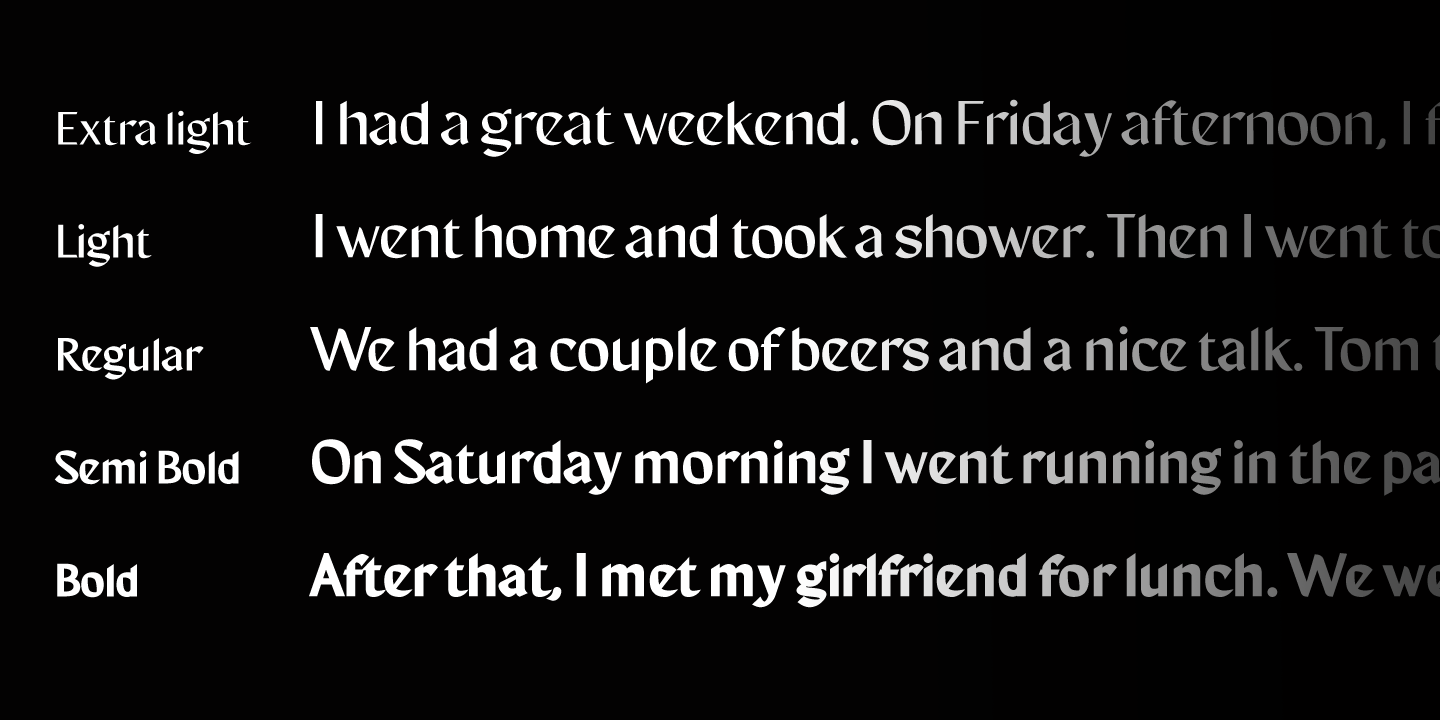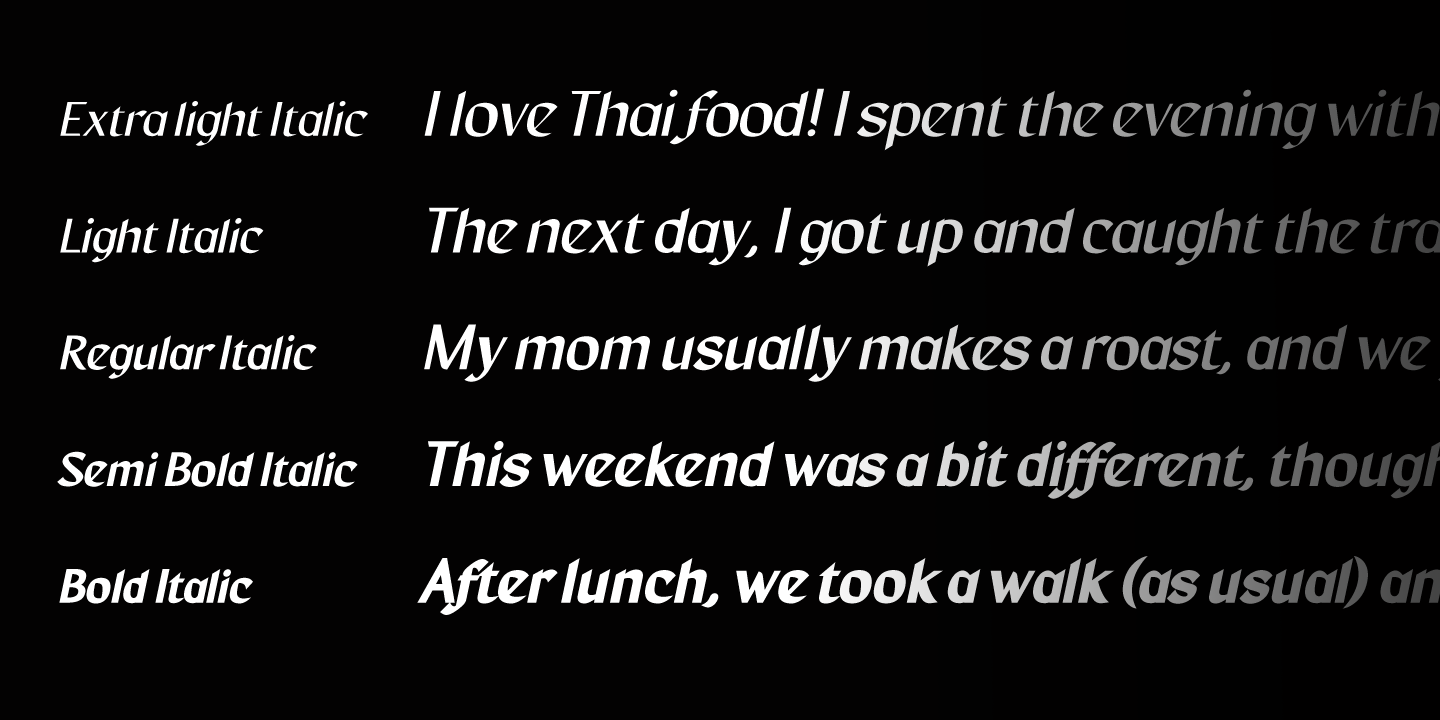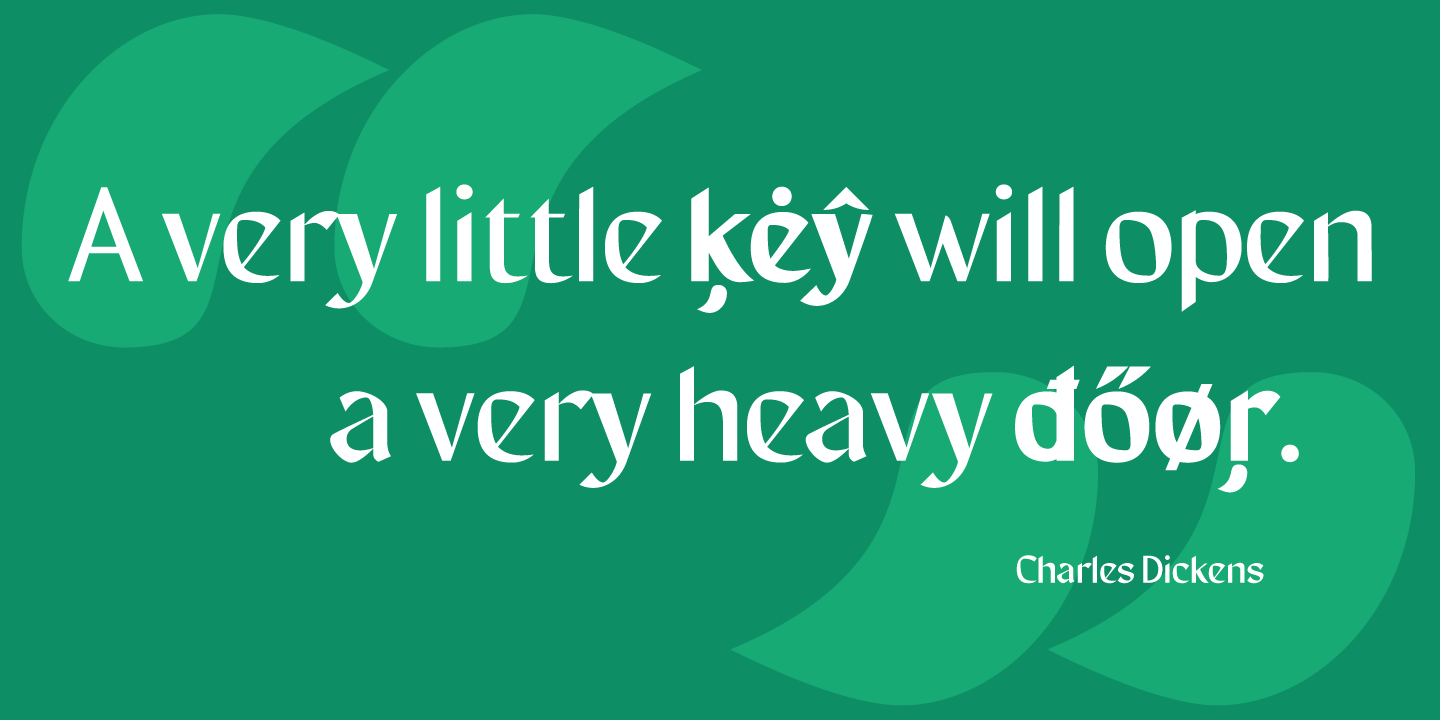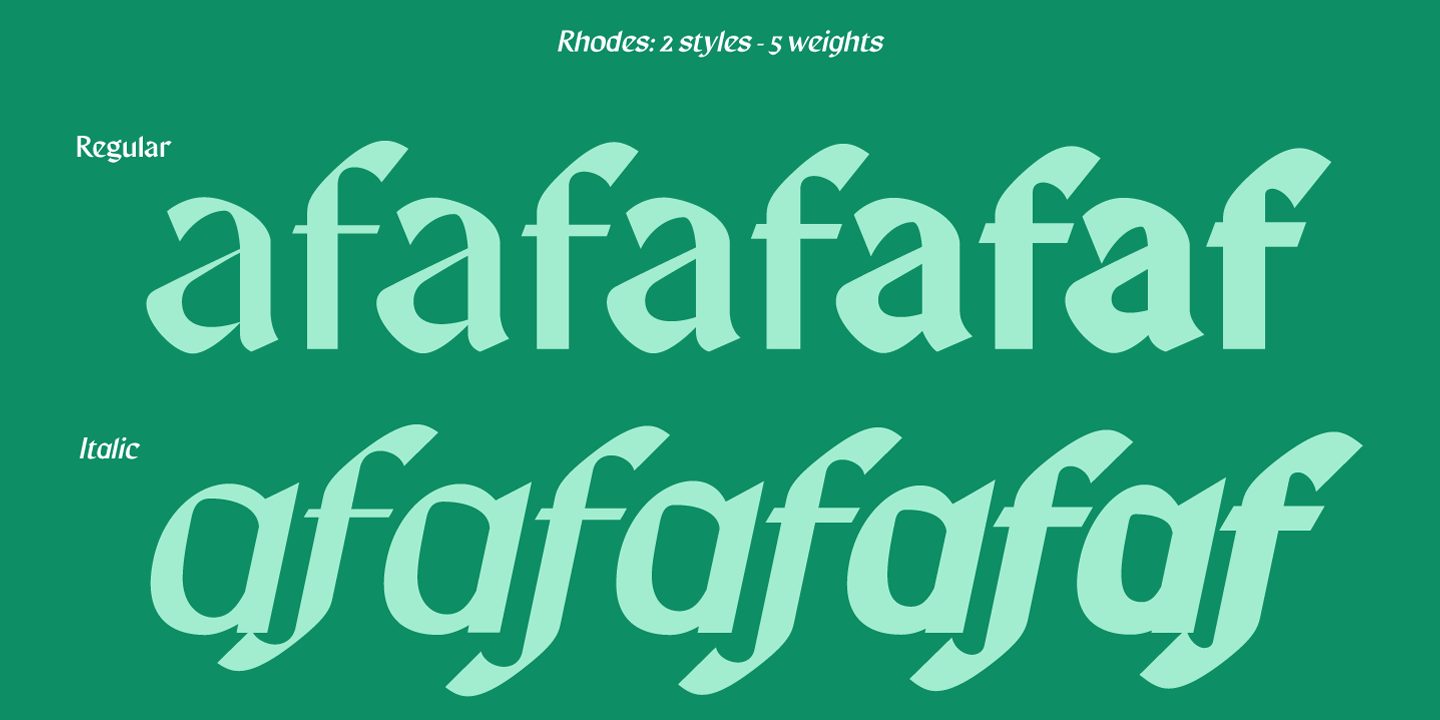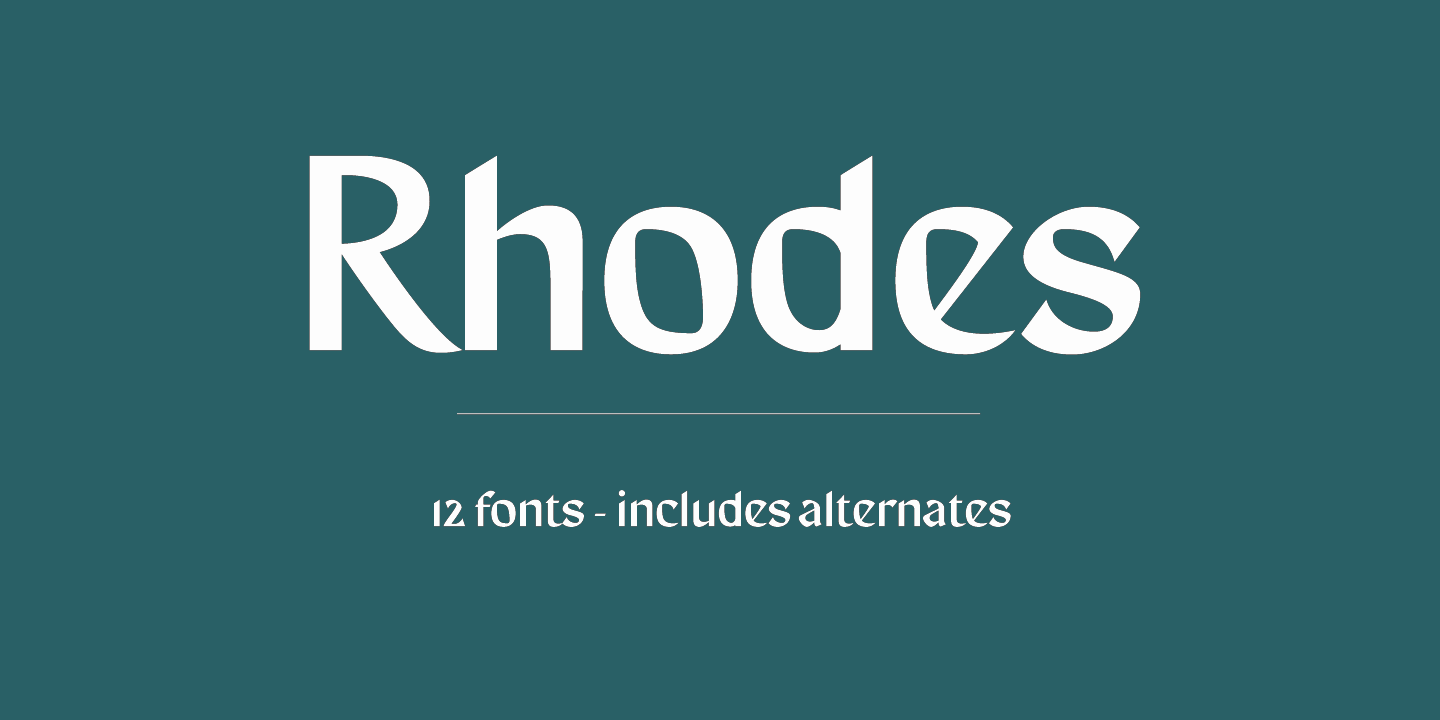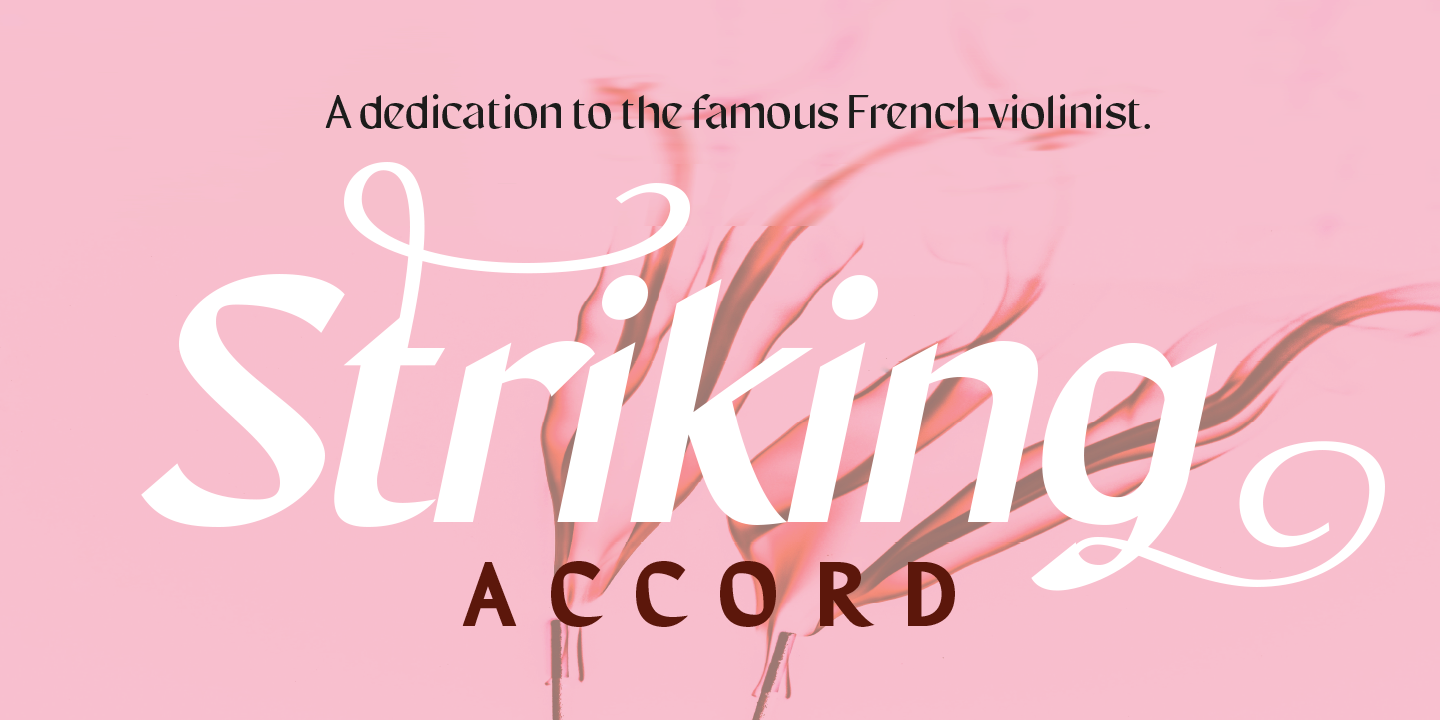
Rhodes
Carine de Wandeleer
2020
A Modern Geometric Sans Family
Rhodes is a modern geometric sans serif consisting of 5 weights ranging from Extra Light to Bold with matching true italics. Its variety of weights provide a range of choices that will help you find the best typographic color for your project.
Engineered for Emotional Branding
Rhodes has been designed purposely to enable brands to appeal more emotionally to modern consumers. The balanced characteristic of Rhodes with unique details, such as the geometric form and the prominent x-height makes it perfect for strong headlines and outstanding logos, but also suitable for long text. Lighter weights are well-suited for body text while heavier ones are ideal for high impact headlines.
Exclusive Ornaments Included
Rhodes includes a set of ornaments in regular and italic to be able to combine it with the glyphs and thus, to give your designs more exclusivity.